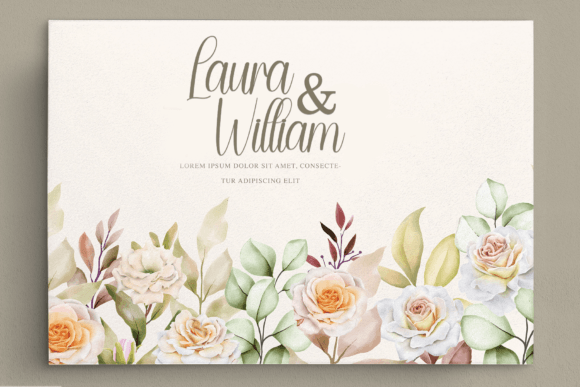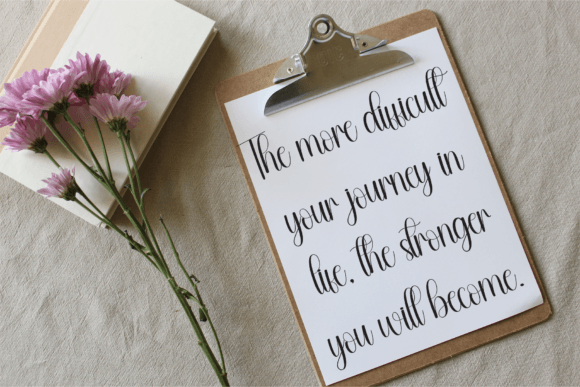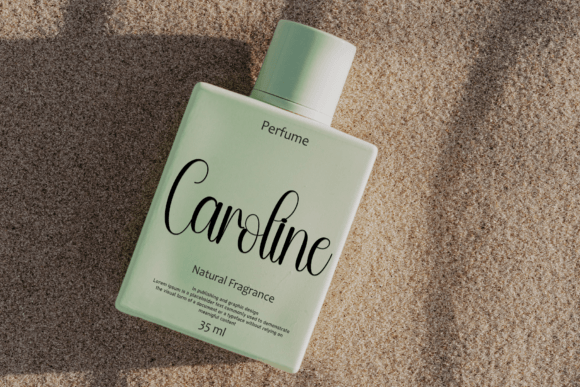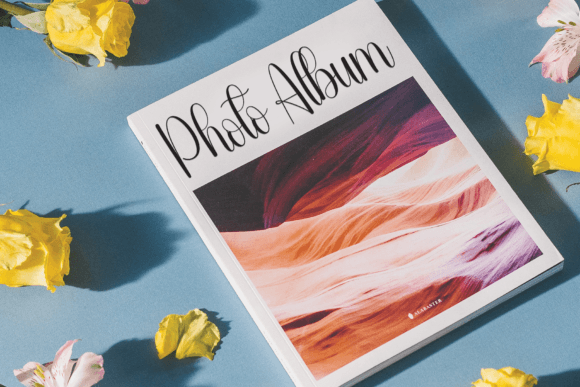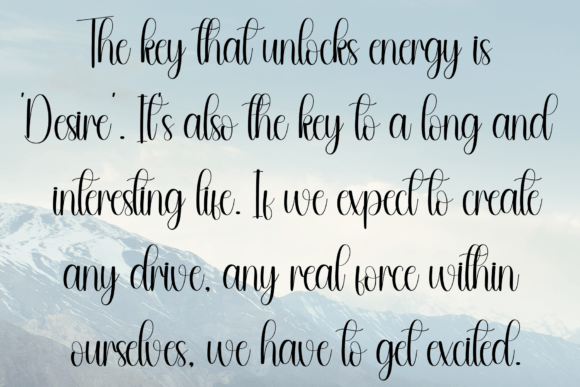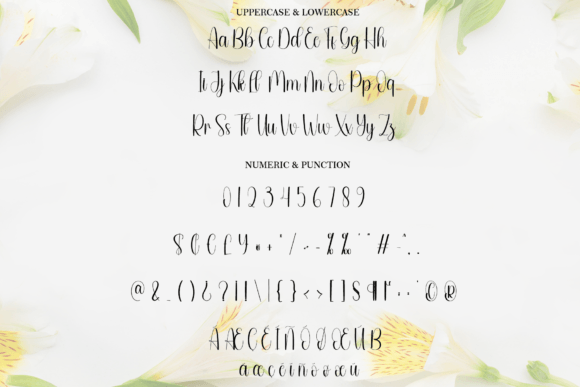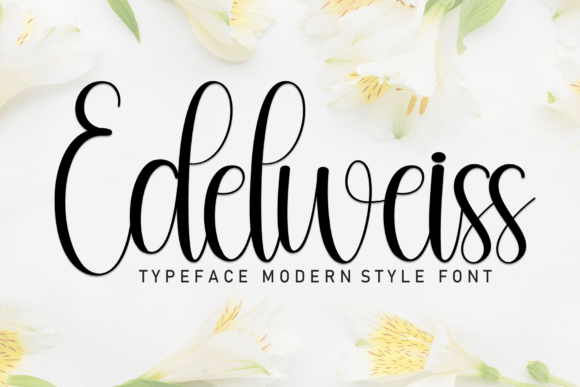
Introducing Edelweiss Font: The Sweet and Friendly Handwritten Font for Your Design Needs
Are you a designer or crafter looking for a font that can add a touch of sweetness and friendliness to your designs? Look no further than Edelweiss Font! This beautiful handwritten font is perfect for creating wedding invitations, cards, and other designs that require a lovely and personal touch.
What Makes Edelweiss Font So Special?
Edelweiss Font is a unique and charming font that is sure to capture the hearts of designers and crafters alike. Its sweet and friendly appearance makes it ideal for a wide range of design projects, from wedding invitations and cards to posters and social media graphics. The font’s handwritten style gives it a personal and approachable feel, making it perfect for designs that require a touch of warmth and personality.
Characteristics of Edelweiss Font
So, what makes Edelweiss Font so special? Here are just a few of its key characteristics:
- Sweet and Friendly Appearance: Edelweiss Font has a sweet and friendly appearance that is sure to delight. Its rounded edges and flowing lines give it a soft and approachable feel.
- Handwritten Style: The font’s handwritten style gives it a personal and unique touch. It’s perfect for designs that require a touch of warmth and personality.
- Cute and Fun: Edelweiss Font is a cute and fun font that is sure to add a touch of whimsy to your designs. It’s perfect for creating playful and eye-catching graphics.
- Highly Versatile: Edelweiss Font is highly versatile and can be used for a wide range of design projects. From wedding invitations and cards to posters and social media graphics, this font is sure to shine.
Uses for Edelweiss Font
So, what can you use Edelweiss Font for? The possibilities are endless! Here are just a few ideas to get you started:
- Wedding Invitations: Edelweiss Font is perfect for creating beautiful and elegant wedding invitations. Its sweet and friendly appearance makes it ideal for formal and informal wedding designs.
- Cards and Stationery: The font’s handwritten style and cute appearance make it perfect for creating cards and stationery for any occasion.
- Posters and Flyers: Edelweiss Font is a great choice for creating eye-catching posters and flyers. Its bold and playful appearance is sure to grab attention.
- Social Media Graphics: The font’s friendly and approachable feel makes it perfect for creating social media graphics that are sure to engage and delight your audience.
Tips for Using Edelweiss Font
Here are a few tips for using Edelweiss Font in your designs:
- Pair it with Other Fonts: Edelweiss Font pairs well with other fonts, especially sans-serif fonts. Try pairing it with a clean and simple font to create a beautiful contrast.
- Use it in Large Sizes: Edelweiss Font looks great in large sizes, making it perfect for headings and titles.
- Experiment with Colors: The font’s sweet and friendly appearance makes it perfect for a wide range of colors. Experiment with different colors to find the perfect combination for your design.
In conclusion, Edelweiss Font is a sweet and friendly handwritten font that is perfect for designers and crafters looking to add a touch of warmth and personality to their designs. Its cute and fun appearance makes it ideal for a wide range of design projects, from wedding invitations and cards to posters and social media graphics. With its highly versatile nature and endless uses, Edelweiss Font is sure to become a favorite in your design arsenal.